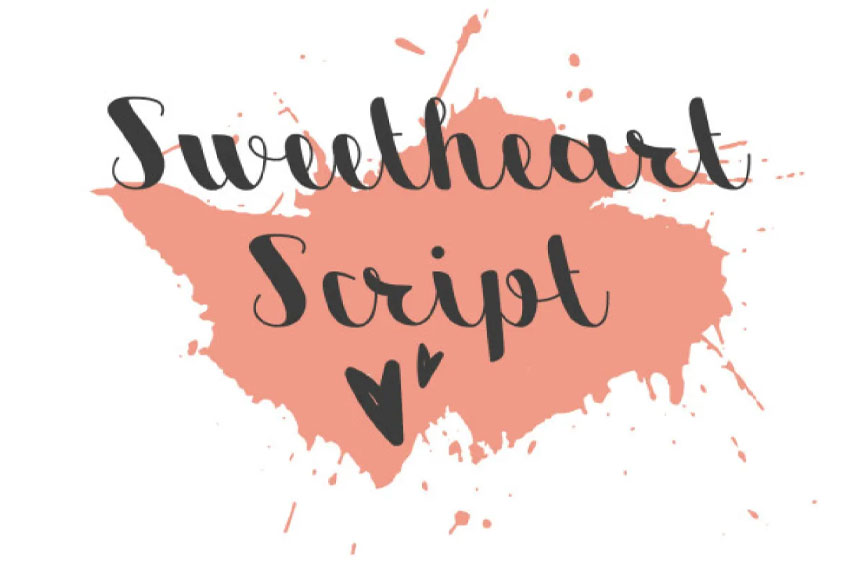
Sweetheart Script Font
Sweetheart Script Font is a Brush Handwriting Display Typeface created to express all of your love! With its calligraphic style and soft lines that lead your eyes directly towards each word.
Sweetheart makes for the ideal way to write love notes, greeting posters, cards, advertisements and much more!